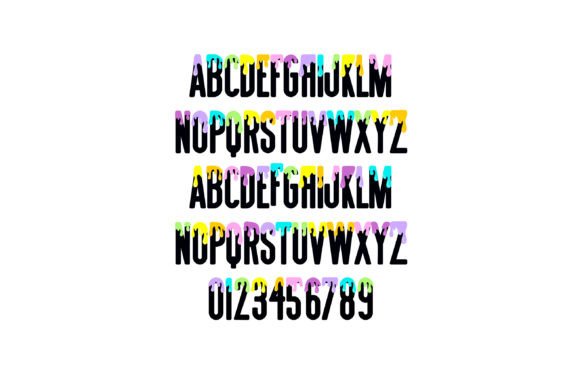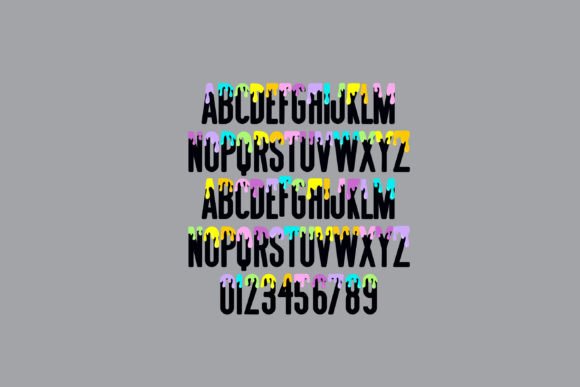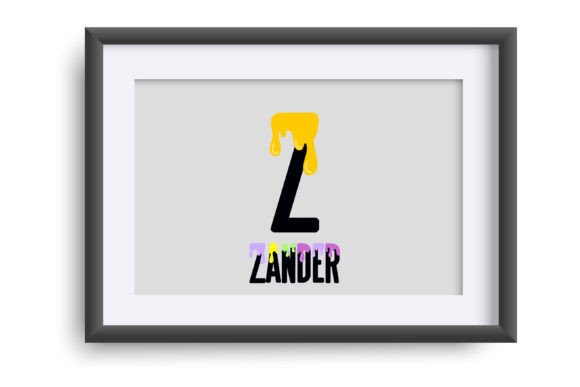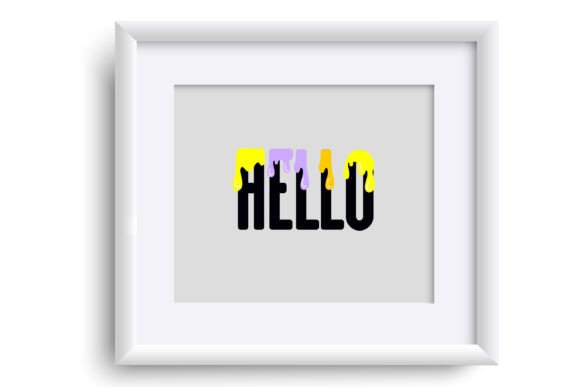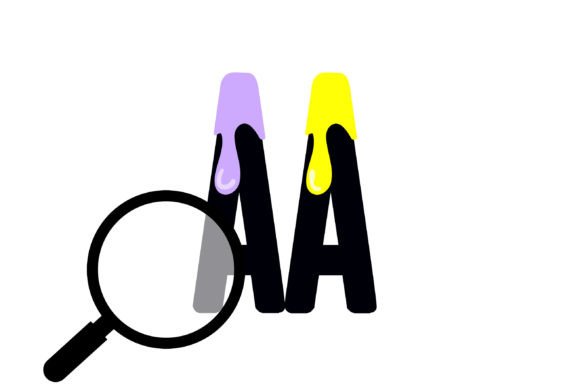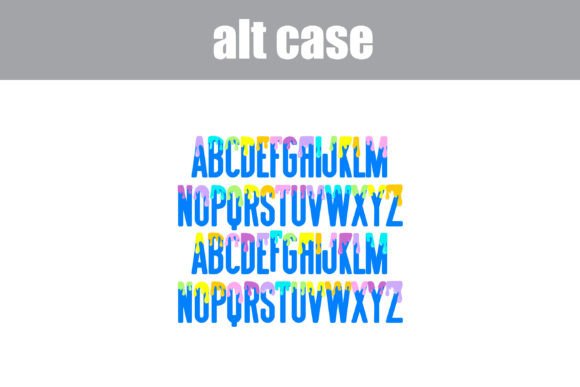
Introducing Art Party Neon Font: Elevate Your Designs with Vibrant Neon Colors
Are you tired of using the same old fonts for your designs? Look no further! Art Party Neon Font is here to add a pop of color and excitement to your projects. This full-color font features a sans serif style dripping in neon paint, perfect for creating eye-catching titles, displays, posters, and more.
What Makes Art Party Neon Font Special?
Art Party Neon Font is not your average font. It comes with an alternative case that includes additional colors, which can be accessed through your system or Silhouette’s glyph map. This means you have even more creative possibilities at your fingertips. The font is compatible with Silhouette Studio, making it a great choice for crafters and designers who use this software.
The Benefits of Full-Color SVG Fonts
Full-color SVG fonts, like Art Party Neon Font, offer a world of creative possibilities. They allow you to add an extra dimension to your designs, making them more engaging and attention-grabbing. With the ability to display a wide range of colors, these fonts are perfect for projects where you want to make a statement.
Tips for Getting the Most Out of Art Party Neon Font
To get the most out of Art Party Neon Font, experiment with different colors and design elements. Try pairing the font with bold graphics or subtle textures to create a unique look. You can also use the alternative case and additional colors to add an extra layer of depth to your design.
Who Can Benefit from Art Party Neon Font?
Art Party Neon Font is perfect for designers, crafters, and anyone looking to add a touch of neon excitement to their projects. Whether you’re creating posters, flyers, or social media graphics, this font is sure to make your designs stand out. Crafters who use Silhouette Studio will particularly love this font, as it’s optimized for use with this software.
Art Party Neon Font is a game-changer for designers and crafters looking to add a pop of color to their projects. With its vibrant neon colors, alternative case, and compatibility with popular design programs, this font is sure to become a favorite. So why settle for ordinary fonts when you can make a statement with Art Party Neon Font?
- Full-color sans serif font with neon paint effect
- Alternative case with additional colors